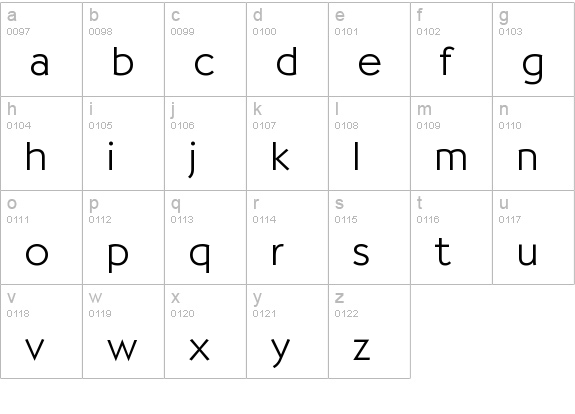
CgBernhardt-Light is a refined, elegant variant in the CgBernhardt typeface family \xE2\x80\x94 well suited to elegant body text, refined sub-headings, and luxury branding.
CgBernhardt-Light is a sophisticated and elegant font that exudes a sense of modernity and refinement. Its clean lines and graceful curves make it perfect for adding a touch of class to any design project. The light weight of this font gives it a delicate and airy appearance, making it ideal for use in titles, headings, and other display purposes. What makes CgBernhardt-Light even more appealing is that it is available for free download at FontsMarket.com. This means that you can easily access this beautiful font without any cost, making it a fantastic choice for designers, creatives, and anyone looking to elevate their projects with a touch of sophistication. Whether you're working on a branding project, a website design, or any other creative endeavor, CgBernhardt-Light is sure to add a touch of elegance and style. Download it for free today and see how this stunning font can enhance your work!